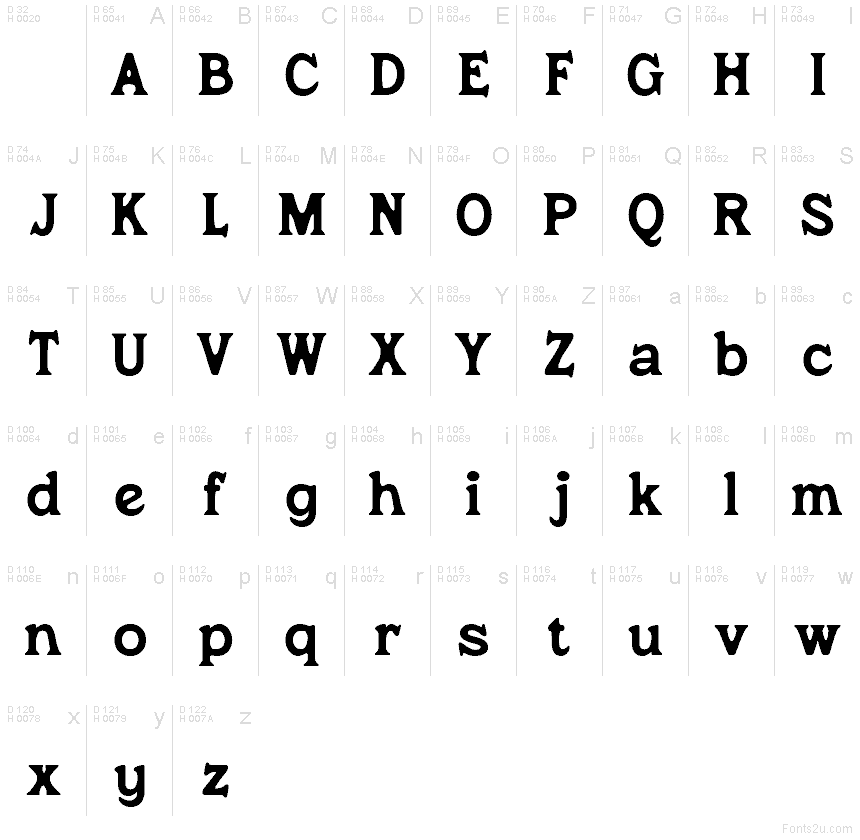
CSAsquintDrawn-Regular Demo
CS Asquint Drawn font by Craft Supply Co. is a structured serif typeface with classic appearances inspired by vintage sources. With professional tones and clean looks, the font gives both a stunning heading and reading experience.
Enjoy CS Asquint in branding, packaging, website logos, poster designs, flyer texts, typographic t-shirts quotes or hoodies designs. Other applications can be business-related such as corporate profiles or editorial purposes like magazines and newspapers.
CS Asquint Drawn Demo